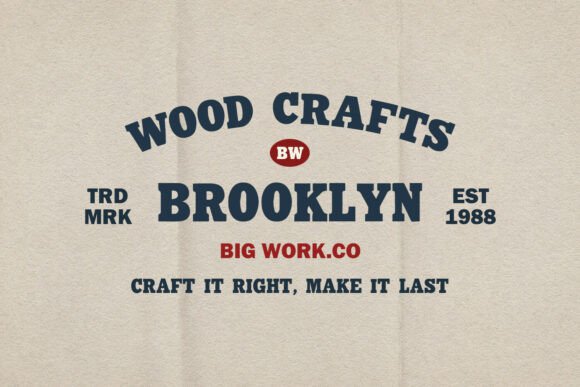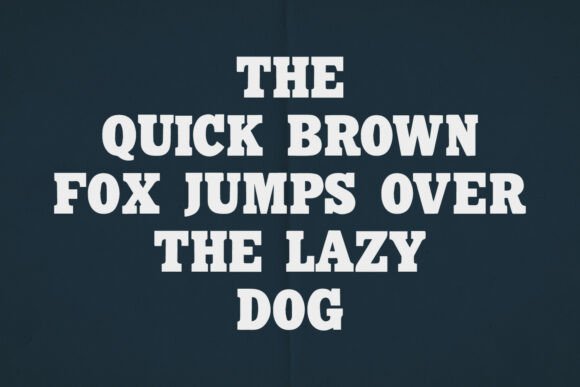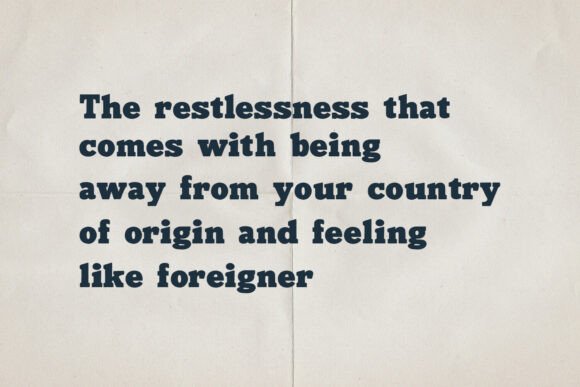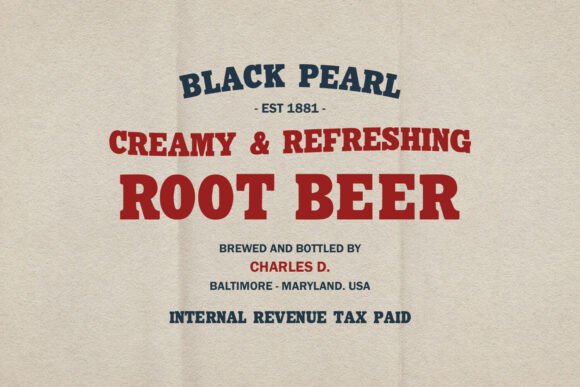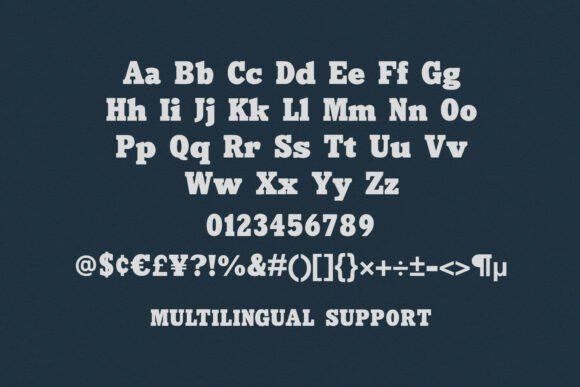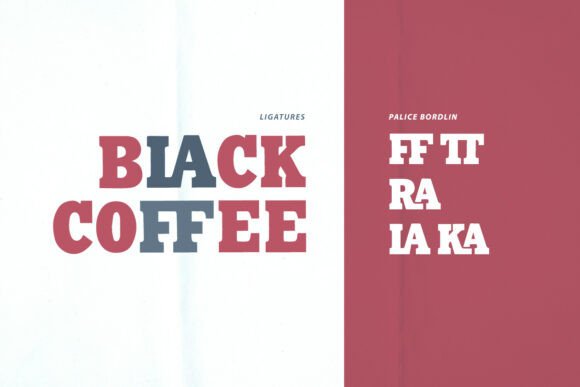
Introduction to Palice Bordlin Font
Bring a touch of classic heritage to your modern designs with Palice Bordlin.
Palice Bordlin is a powerful, bold display slab-serif font that radiates a timeless vintage charm Inspired by traditional letterpress and classic mid-century typography, this typeface is meticulously crafted with thick, sturdy strokes and distinctive serifs to ensure your message stands out with authority and elegance.